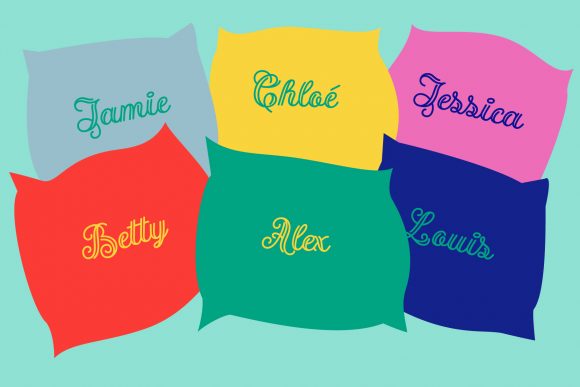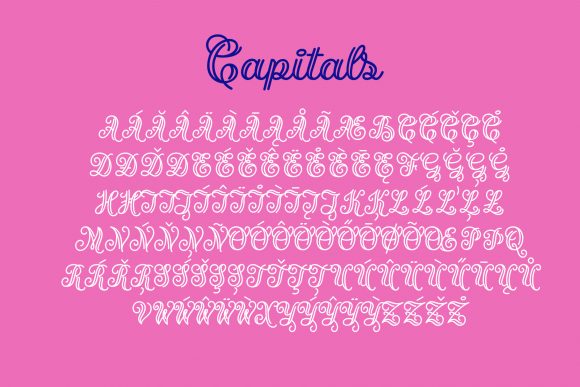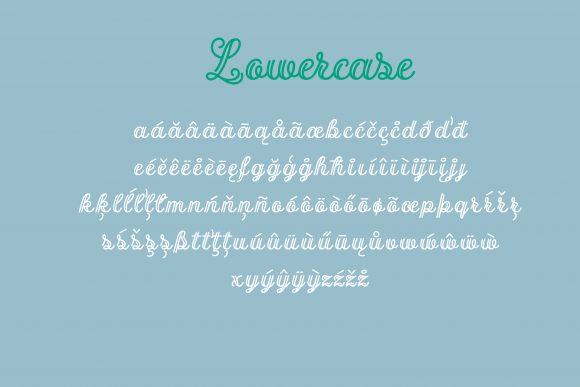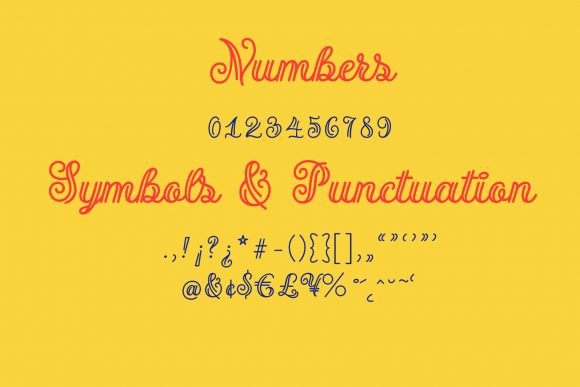
Introduction to Name Broidery Font
Name Broidery is a dazzling script font.
This font is neatly crafted and highly detailed Whatever the topic, this font will be a wonderful asset to your font library, as it has the potential to enhance any creation.
Key Features of Name Broidery Font
Why Choose Name Broidery Font?
Name Broidery Font offers exceptional quality and versatility, making it a valuable addition to your design toolkit. Whether you’re creating for personal projects or commercial use, Name Broidery Font delivers professional results.